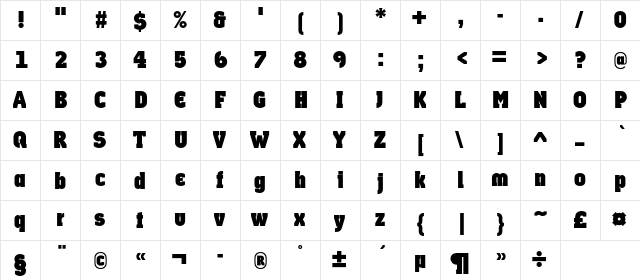
GvardiaHeavyC Regular Font Preview
GvardiaHeavyC Regular
Design Context for GvardiaHeavyC Typeface
GvardiaHeavyC offers clean, dependable letterforms without strong stylistic allegiance, making it a practical choice for designers who need flexibility.